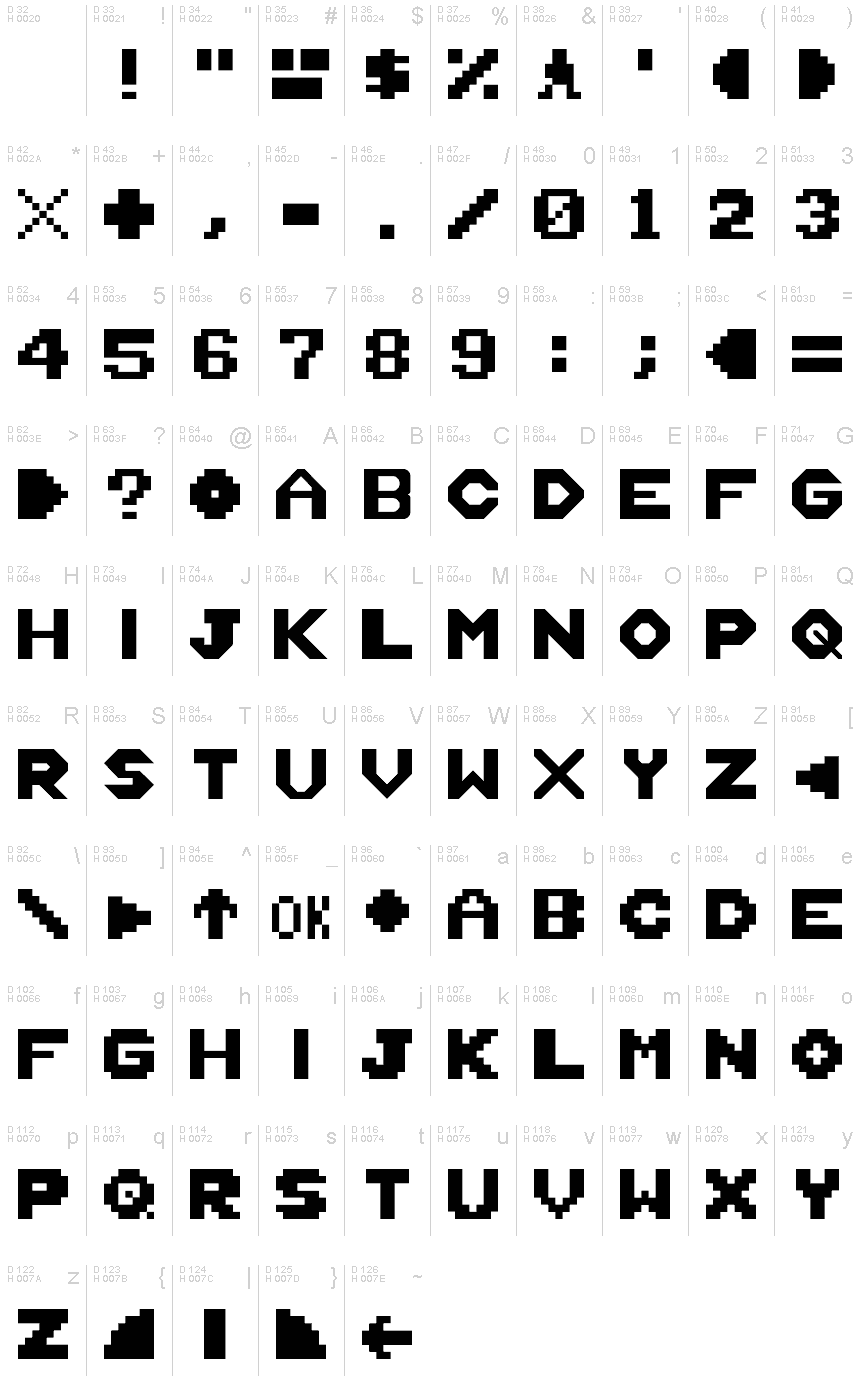
Wobble Board Regular
Designer description: Alternate character set (to standard CBM) from Rolf Harris' Picture Builder. Given Rolf's incarceration for sex offences, I chose to name the font "Wobble Board" after the musical instrument he devised in 1959.
Lower case is pixeled, upper case is me experimenting with the blocks (first time I've used block-stacking). This character set didn't use punctuation, it was designed for building pictures character by character; I've preserved a couple of the graphic characters, but also imagined a few glyphs based on the thick lettering style. I like the look of these thick letters with proportional spacing so that's what we have.
The hash symbol (#) can be used to build a brick wall.